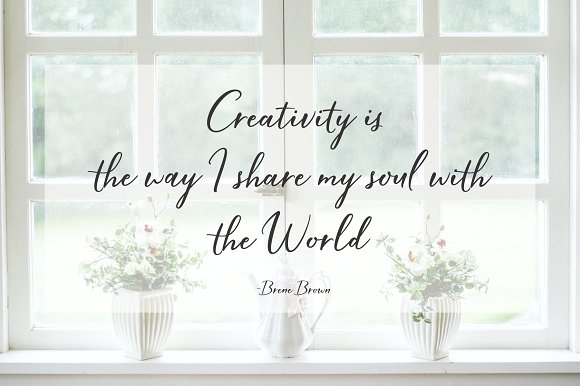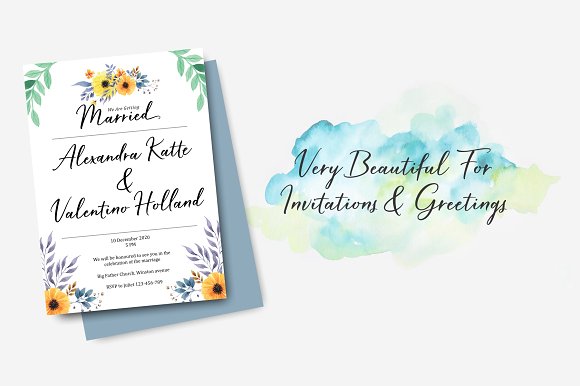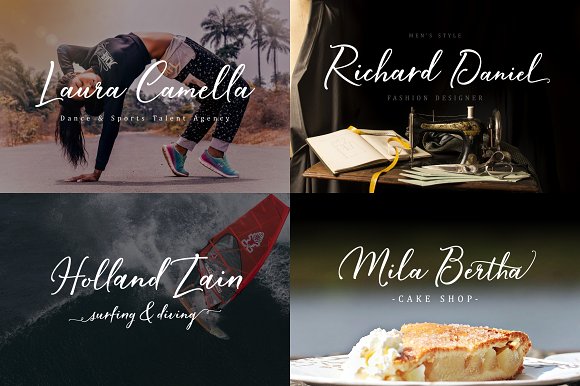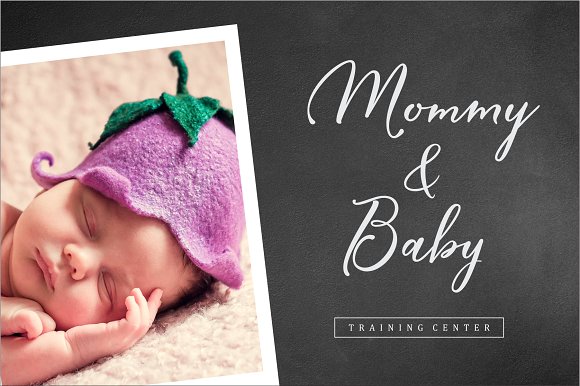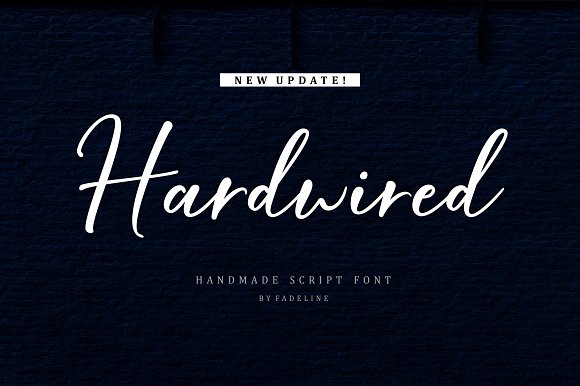
Hardwired Script Font
A modern handmade script typeface. Introducing Hardwired Font. Hardwired a new handmade script with a style elegant, sweet and simple. Made with great care to provide the natural and modern elements. This font has many advantages although it looks ordinary. The great thing about this font is you can find some style when you use it, examples such as natural handwriting style, unique, simple, elegant, and bold. and of course it’s just one font..!